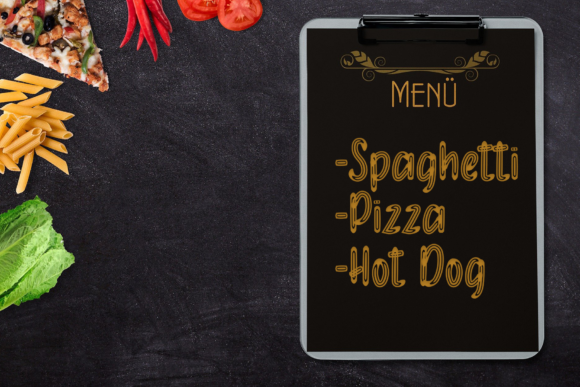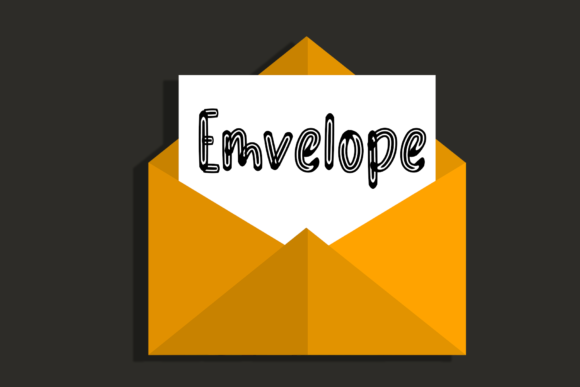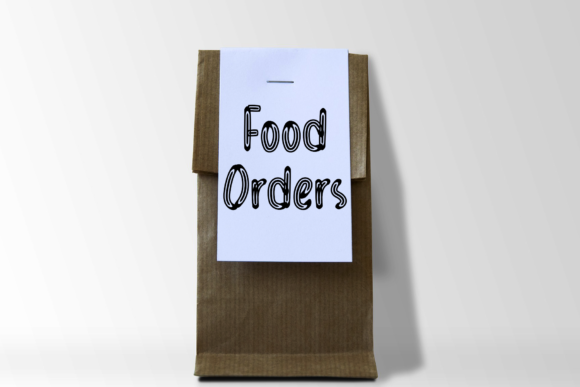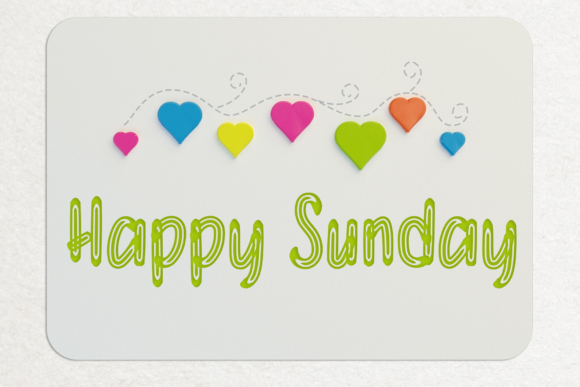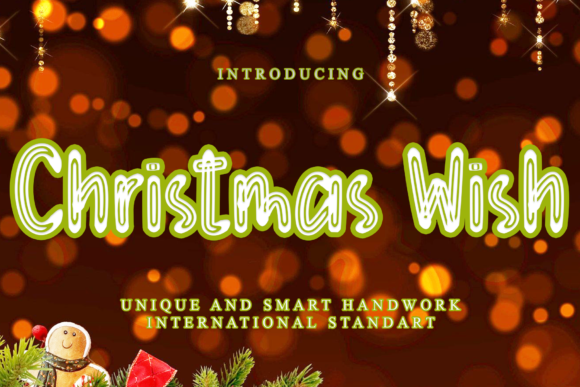
Introducing Christmas Wish Font: A Simple yet Versatile Display Font for Your Holiday Projects
As the holiday season approaches, designers and crafters are on the lookout for the perfect font to add a touch of festive cheer to their projects. If you’re searching for a font that’s both simple and elegant, look no further than Christmas Wish Font. This lovely display font is friendly, versatile, and perfect for a wide range of creative ideas.
What Makes Christmas Wish Font So Special?
Christmas Wish Font is a simple and neat display font that’s designed to be easy to read and visually appealing. Its clean lines and classic design make it perfect for a variety of projects, from holiday cards and invitations to festive posters and social media graphics.
One of the things that sets Christmas Wish Font apart is its versatility. Whether you’re creating a formal or informal design, this font is sure to fit the bill. It’s perfect for adding a touch of elegance to your projects, or for creating a more playful and whimsical feel.
Why Designers and Crafters Love Christmas Wish Font
So why do designers and crafters love Christmas Wish Font? For starters, it’s incredibly easy to use. The font is simple to install and can be used on a variety of devices and software programs. Plus, it’s highly legible, even at small sizes, making it perfect for use on a wide range of projects.
Another reason designers and crafters love Christmas Wish Font is its flexibility. This font can be used for a wide range of projects, from:
- Festive posters and flyers
Whether you’re creating a formal or informal design, Christmas Wish Font is sure to be a great choice.
Tips for Using Christmas Wish Font in Your Projects
Here are a few tips for using Christmas Wish Font in your projects:
- Use it as a headline font to add a touch of festive cheer to your designs
- Pair it with other fonts to create a unique and eye-catching combination
- Use it to create a cohesive look across multiple projects and platforms
If you’re looking for a simple and versatile display font for your holiday projects, look no further than Christmas Wish Font. This lovely font is perfect for a wide range of creative ideas, from holiday cards and invitations to festive posters and social media graphics. With its clean lines, classic design, and ease of use, Christmas Wish Font is sure to become a favorite in your font collection.